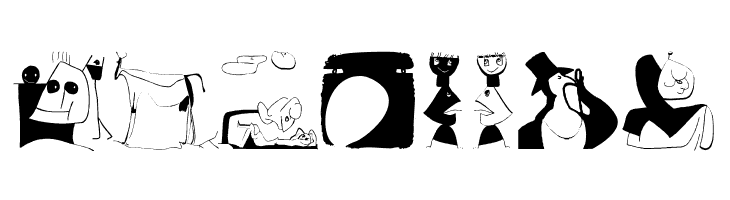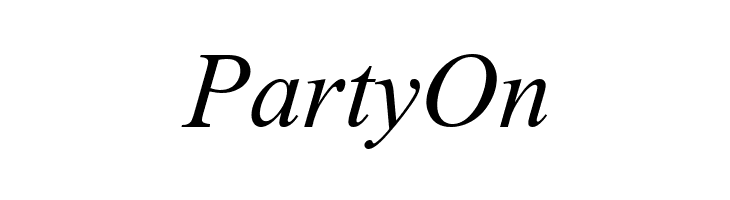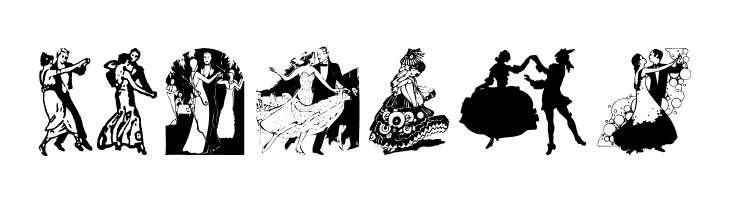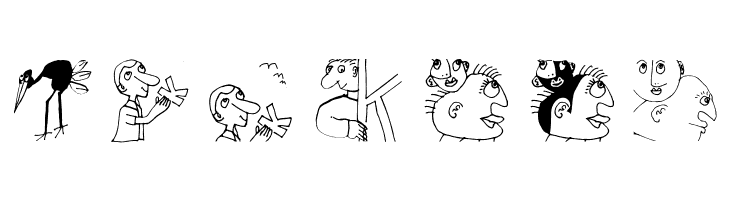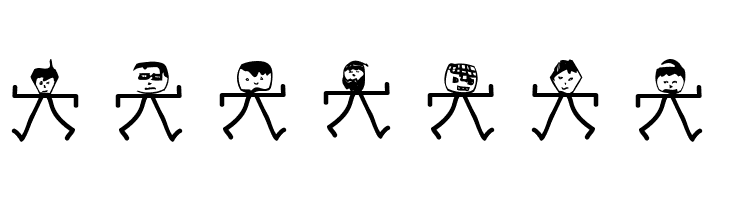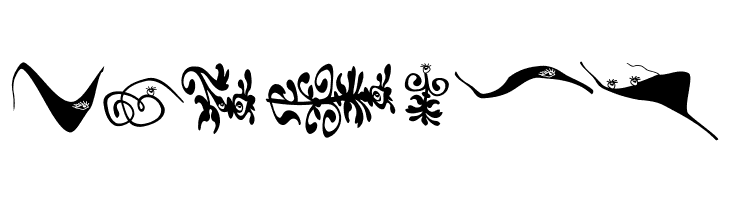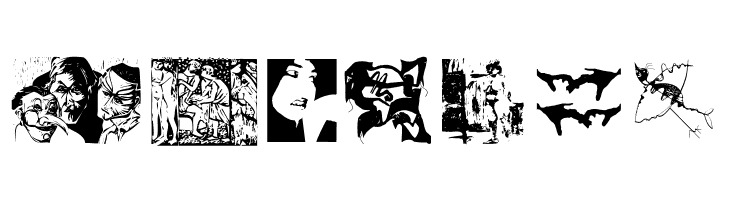
Cubist animal silhouettes form each character in a decorative display style.
A playful, hand-drawn illustrative font with unique doodle-based characters.
A classic serif font with a modern touch, offering elegance and readability.
Illustrative, dance-themed decorative font with vintage flair.
A playful and artistic font with cartoonish character illustrations.
A playful decorative font with unique stick figure characters.
A decorative font with intricate floral and animal motifs, perfect for artistic projects.
An artistic display font composed of modern art illustrations for each character.